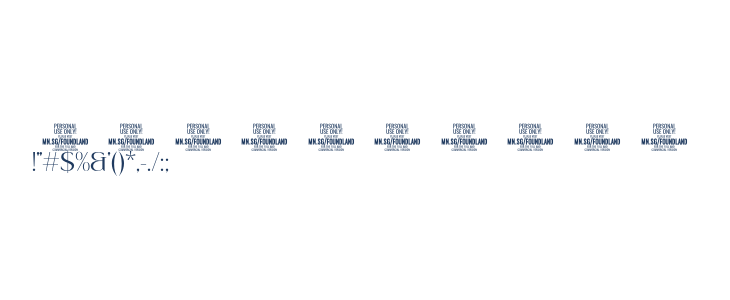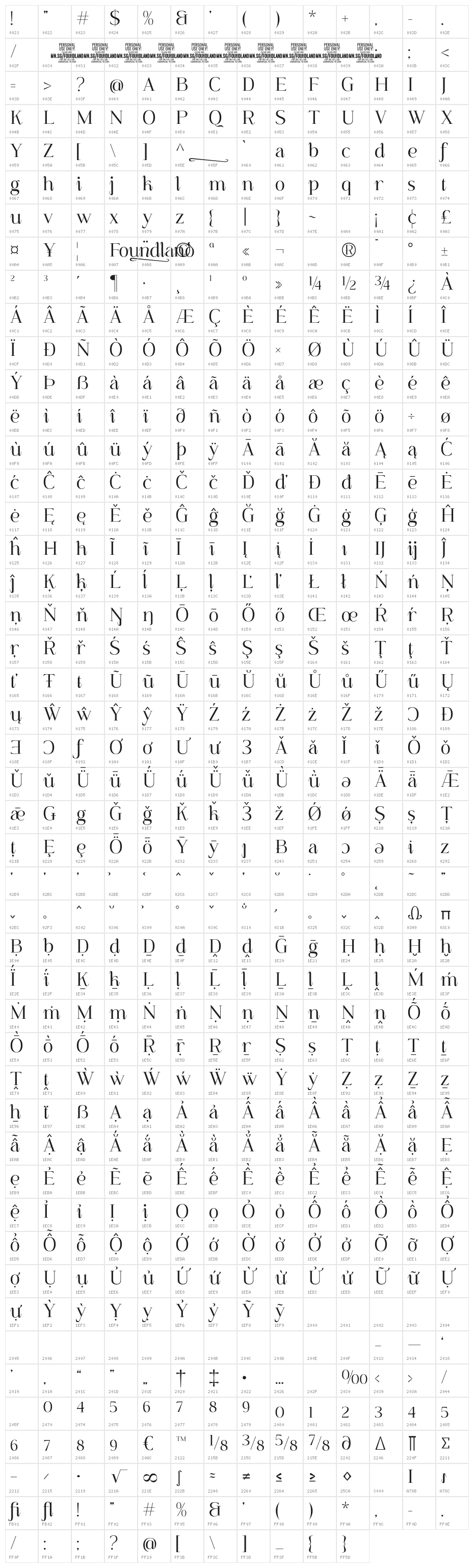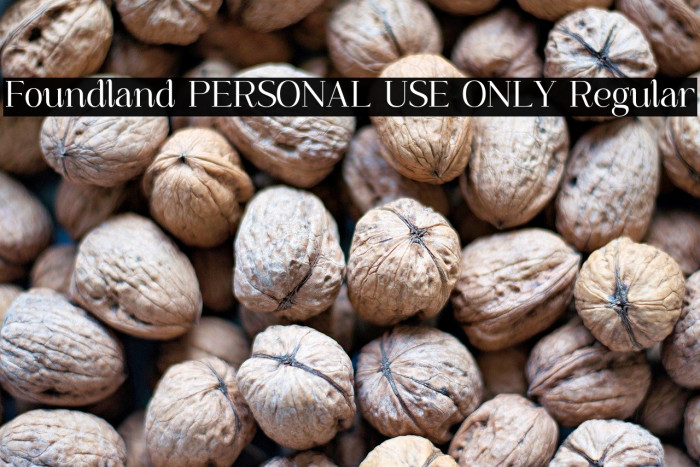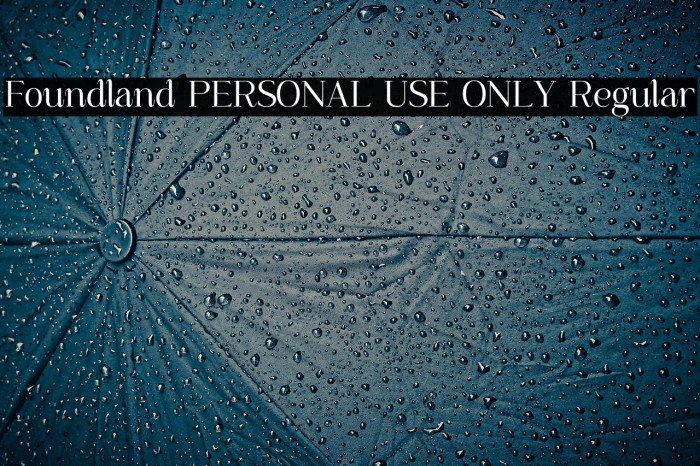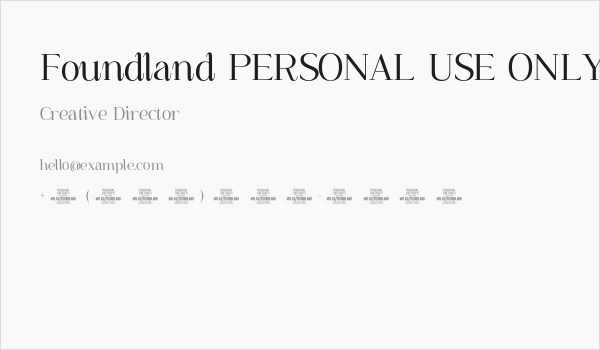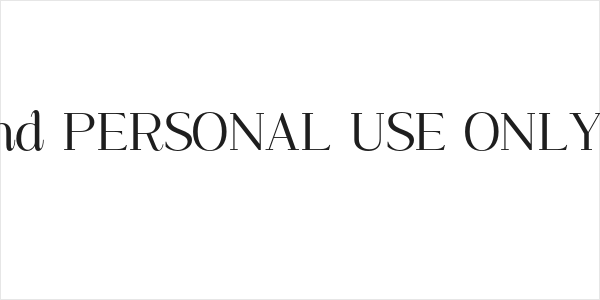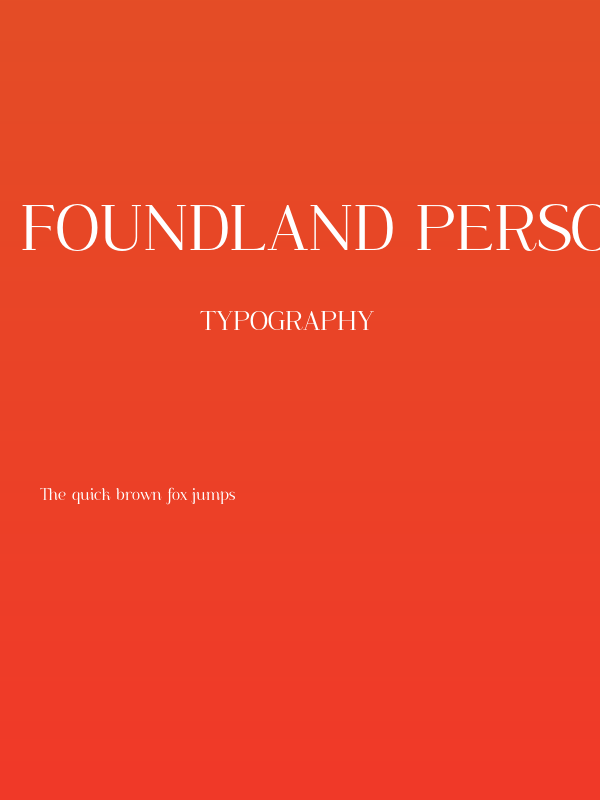
Foundland PERSONAL USE ONLY Regular Font
Foundland PERSONAL USE ONLY Regular Description
This font features a sophisticated and elegant serif style, characterized by its thin, elongated strokes and subtle curves. The uppercase letters exhibit a classic and refined appearance, while the lowercase letters maintain a harmonious flow with slightly rounded edges. The numerals are consistent with the overall design, offering a balanced and readable look. Special characters are thoughtfully integrated, enhancing the font's versatility. The font's design is suitable for projects that require a touch of elegance and tradition, making it ideal for formal invitations, editorial layouts, and branding.
| Proposed Projects | Ideal for wedding invitations, luxury branding, editorial design, and classic book covers. |